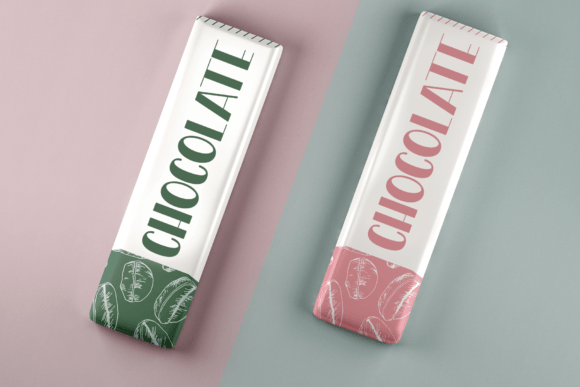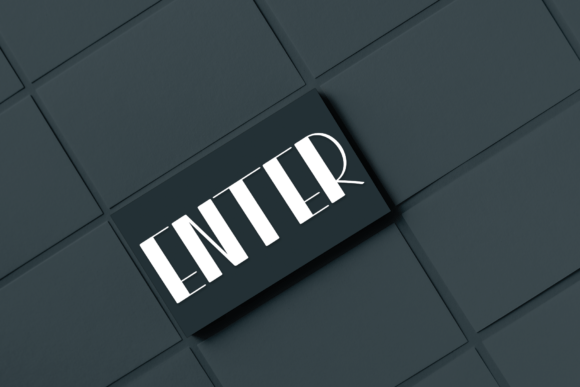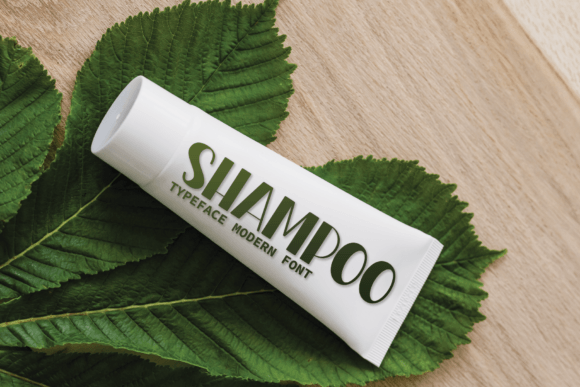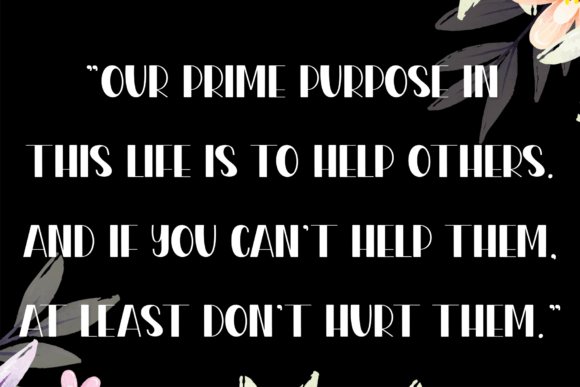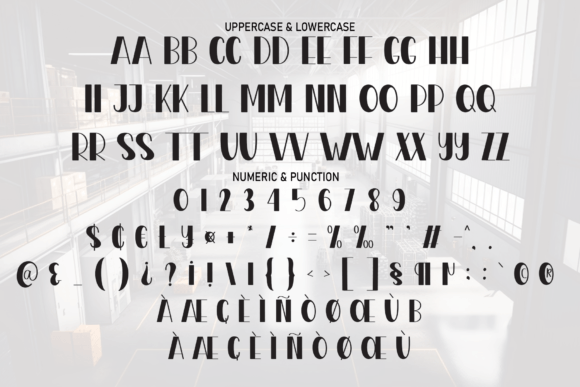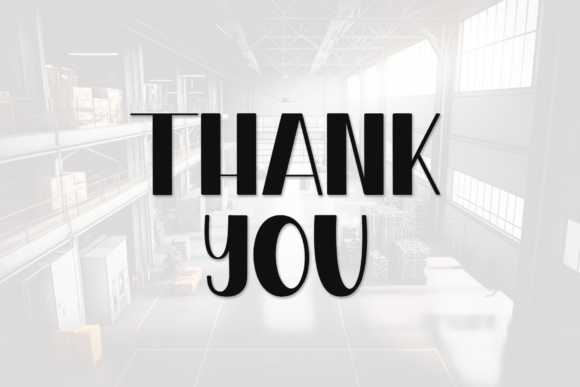
Introducing Factory Font: The Cool and Modern Sans-Serif Font You Need for Your Projects
Are you tired of using the same old fonts in your designs? Do you want to add a touch of modernity and coolness to your projects? Look no further than Factory Font, a sleek and contemporary sans-serif font that’s sure to take your designs to the next level. In this article, we’ll explore the features and benefits of Factory Font, and why it’s the perfect addition to your design toolkit.
What is Factory Font?
Factory Font is a modern sans-serif font designed to be both clean and elegant. Its simple yet stylish design makes it perfect for a wide range of applications, from digital designs to print materials. The font features a unique and distinctive style that’s both bold and subtle, making it perfect for headlines, titles, and body text.
Key Features of Factory Font
- Modern and sleek design: Factory Font boasts a modern and sleek design that’s perfect for contemporary designs.
- Clean and elegant lines: The font features clean and elegant lines that make it easy to read and visually appealing.
- Highly legible: Factory Font is designed to be highly legible, making it perfect for body text and long-form content.
- Supports multiple languages: The font supports multiple languages, making it a great choice for global designs.
- Easy to use: Factory Font is easy to use and can be easily integrated into your design workflow.
Benefits of Using Factory Font
So, why should you use Factory Font in your projects? Here are just a few benefits of using this amazing font:
- Adds a touch of modernity: Factory Font adds a touch of modernity and coolness to your designs, making them stand out from the crowd.
- Improves readability: The font’s clean and elegant design makes it easy to read, improving the overall readability of your content.
- Versatile: Factory Font is versatile and can be used in a wide range of applications, from digital designs to print materials.
- Time-saving: The font is easy to use and can be easily integrated into your design workflow, saving you time and effort.
How to Use Factory Font in Your Projects
Using Factory Font in your projects is easy. Here are a few tips to get you started:
- Headlines and titles: Use Factory Font for headlines and titles to add a touch of modernity and coolness to your designs.
- Body text: Use the font for body text to improve readability and add a touch of elegance to your content.
- Digital designs: Use Factory Font in digital designs, such as websites, social media graphics, and mobile apps.
- Print materials: Use the font in print materials, such as brochures, flyers, and business cards.
In conclusion, Factory Font is a cool and modern sans-serif font that’s perfect for designers and crafters looking to add a touch of modernity and coolness to their projects. With its clean and elegant design, highly legible lines, and versatile nature, Factory Font is the perfect addition to your design toolkit. So, why wait? Add Factory Font to your projects today and see the difference for yourself!
Factory is a cool and modern sans-serif font. Add it confidently to your projects and you will love the results!